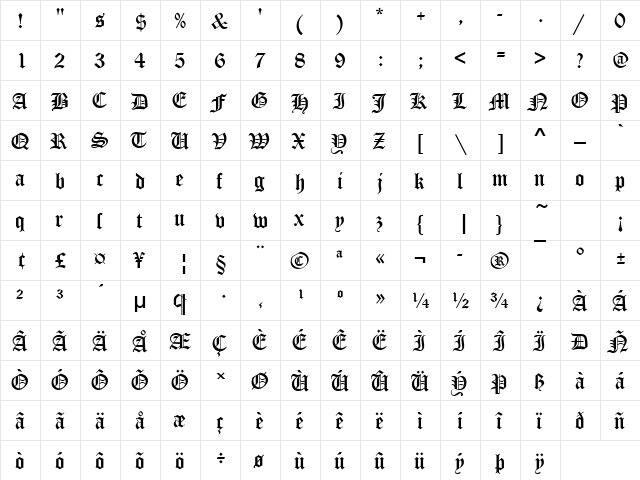
OldEnglishD Regular
Design Context for OldEnglishD Typeface
OldEnglishD is a composed and adaptable typeface that performs quietly and consistently across a wide range of design contexts.